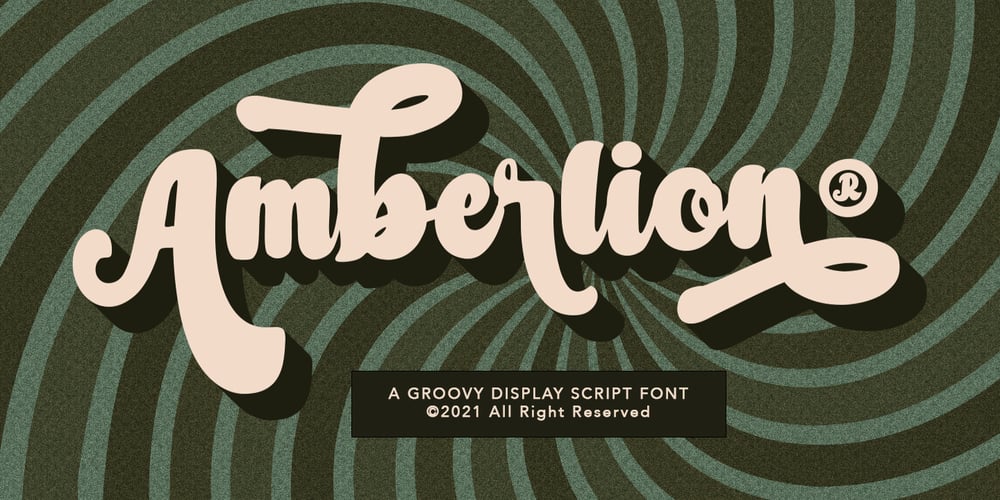
Amberlion
Amberlion font
Amberlion Font Family was designed by Gilang Maulana and published by Maulana Creative. Amberlion contains 1 styles and family package options. Amberlion is a bold 70’s script font, with a curvy bold stroke, uprights and fun character. It has Opentype features ligatures of character and alternate lowercase swashes, To give you an extra creative work. Amberlion script font support multilingual more than 100+ language. This font is good for logo design, Social media, Movie Titles, Books Titles, a short text even a long text letter and good for your secondary text font with sans or serif. Make a stunning work with Amberlion font. Cheers, MaulanaCreative